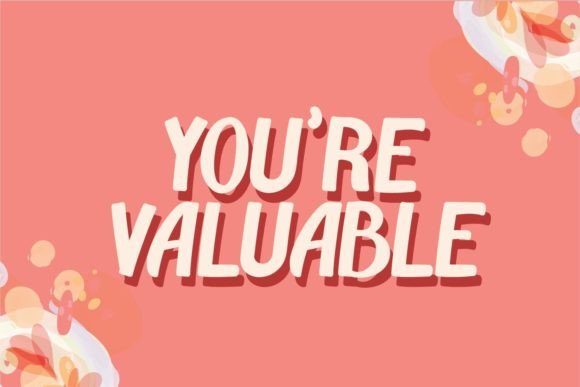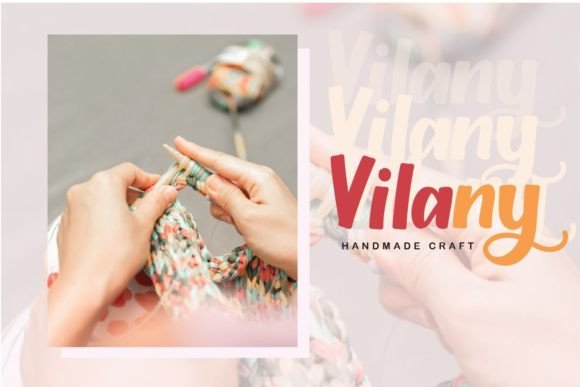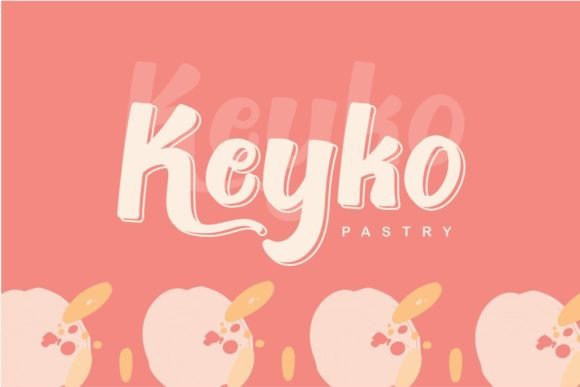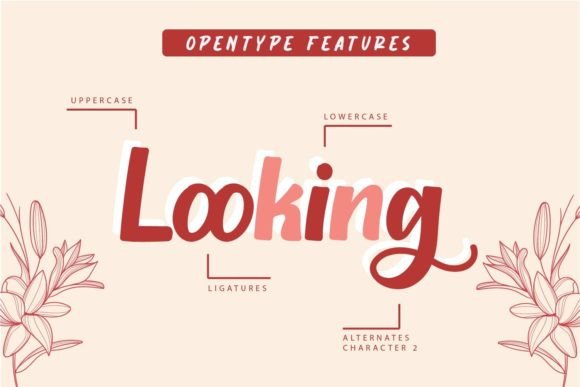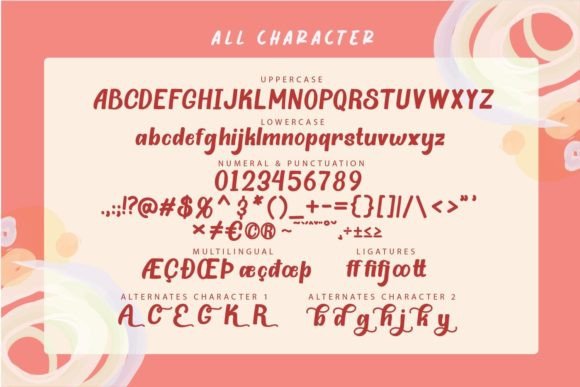
Introduction to Sanytarie Font Font
Fonts play a crucial role in design, and the Sanytarie Font font is a typeface that brings both character and versatility to any project. Whether you’re working on a branding project, a website, or a print design, the Sanytarie Font font offers a unique style that can elevate your work.
Sanytarie is designed with a modern concept that is simple and dynamic.
Is very easy to apply to any design, especially those with an elegant and playful concept, besides that this font is very easy to use both in design and non-design programs because everything changes, and glyphs are supported by Unicode (PUA) .
The Sanytarie Font font is more than just a typeface – it’s a design tool that helps you communicate your message with style and clarity. Its unique character set and versatile design make it suitable for a wide range of applications, from elegant invitations to bold headlines.
With its carefully crafted letterforms and balanced proportions, the Sanytarie Font font ensures readability and visual appeal across all mediums.
The Sanytarie Font font stands out with its unique design, exceptional readability, and versatility across various design applications.